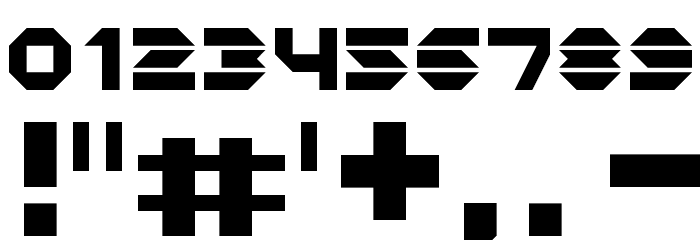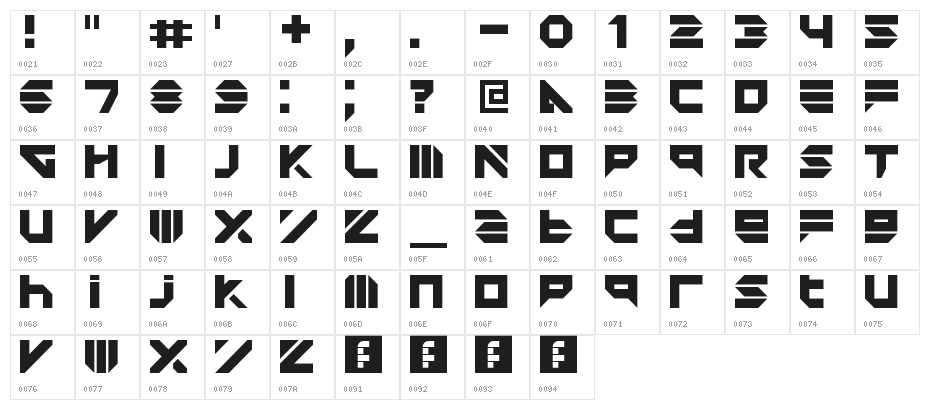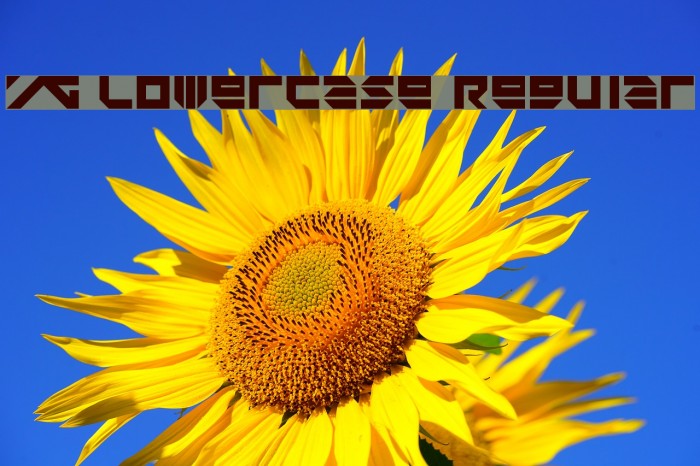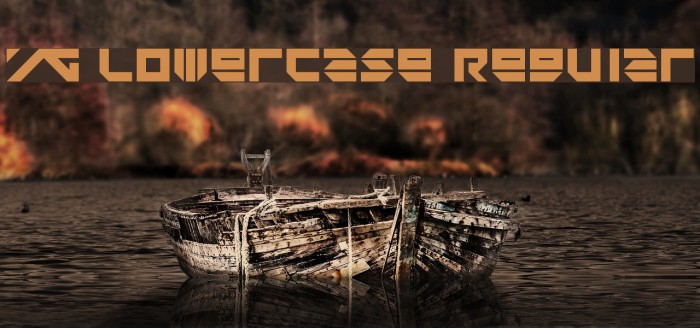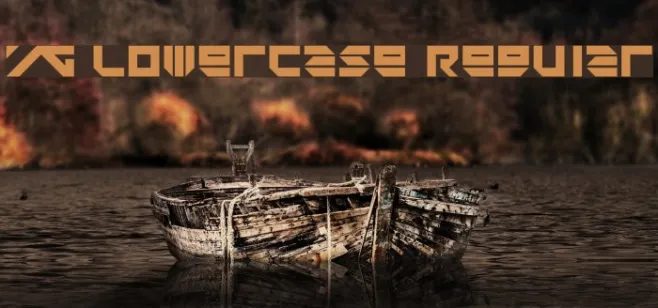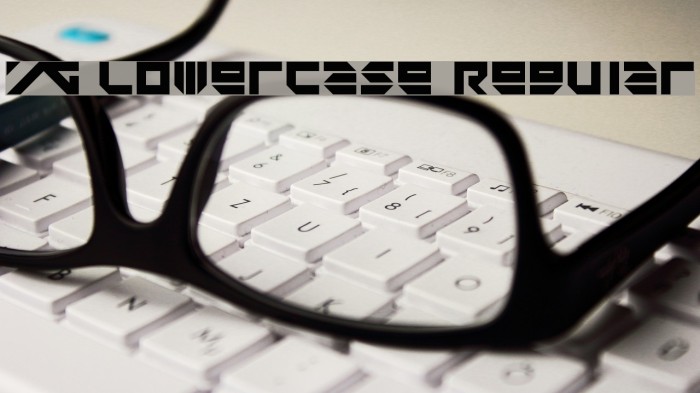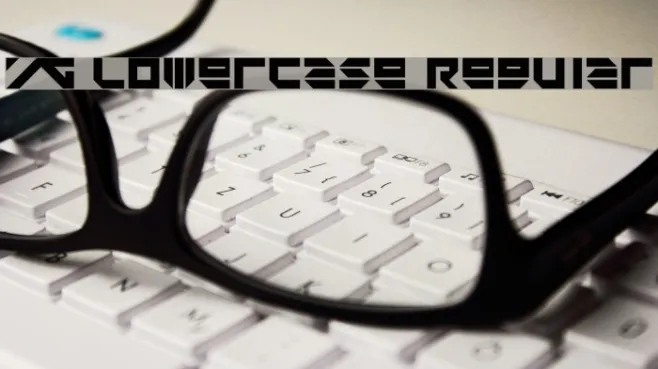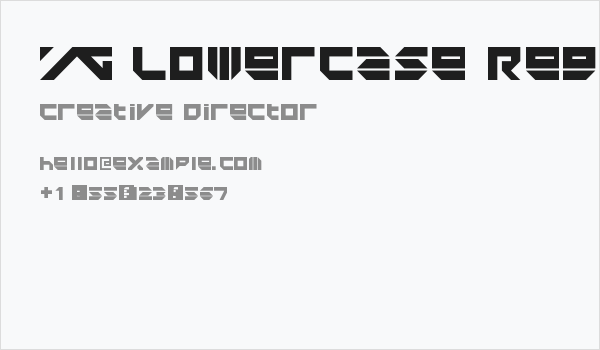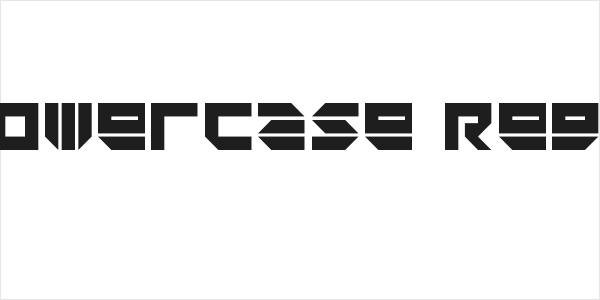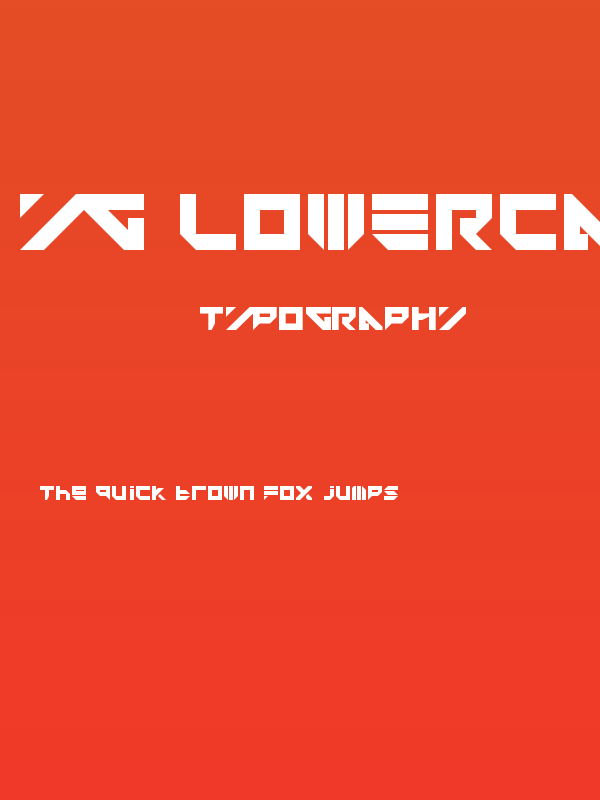
YG Lowercase Regular Font
YG Lowercase Regular Description
This font features a bold, geometric design with a futuristic aesthetic. Each character is constructed from angular shapes, creating a sense of movement and energy. The uppercase and lowercase letters maintain a consistent style, with sharp edges and a blocky appearance. The numerals and special characters follow the same design principles, ensuring uniformity across all glyphs. This font's unique style makes it stand out, offering a modern and edgy look that is ideal for creative projects.
| Proposed Projects | Ideal for sci-fi themed designs, video game graphics, posters, and branding that requires a modern and edgy look. |